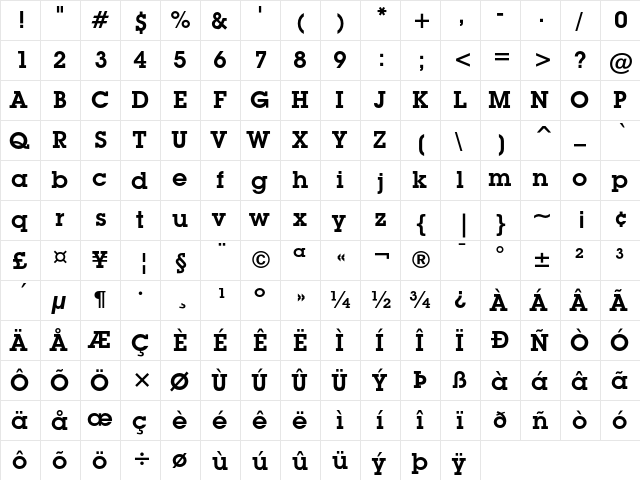
ITC Lubalin Graph Demi Font Preview
ITC Lubalin Graph Demi
ITC Lubalin Graph Demi Font Details
Design Context for ITC Lubalin Graph Typeface
ITC Lubalin Graph takes a measured approach to typography — its balanced proportions and neutral character make it a reliable workhorse for both digital and print work.
Pro Tip: Use ITC Lubalin Graph in both headline and body roles to test its range before committing to a single application.